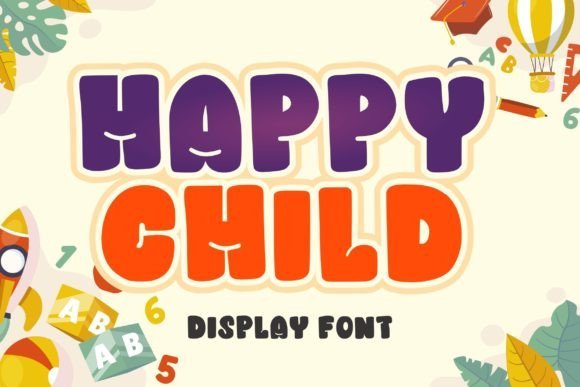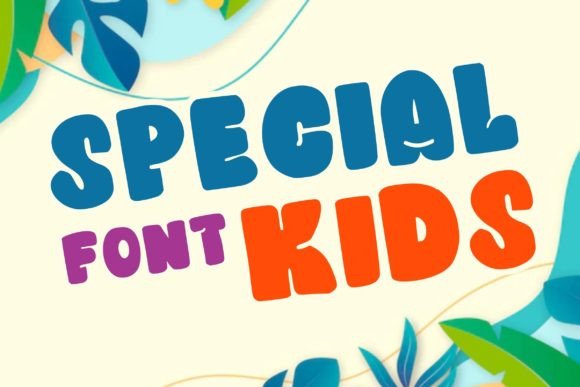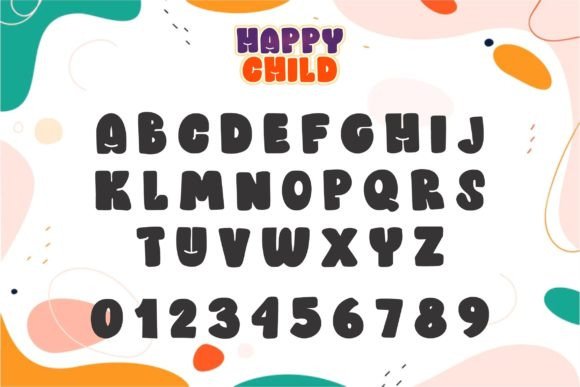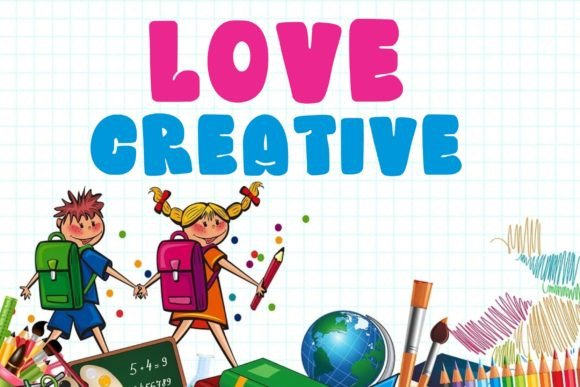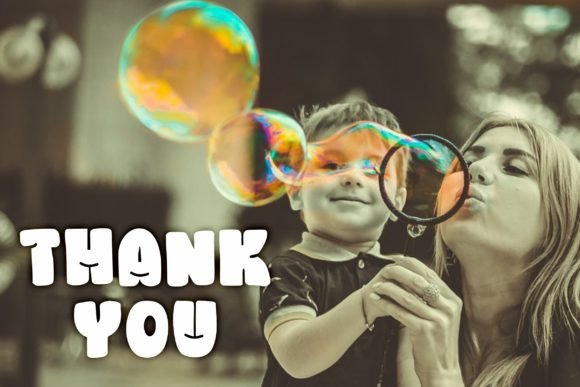
Unlock the Joy in Your Creative Projects
Have you ever sat down to work on a project, and suddenly the perfect idea strikes you? Maybe it’s a new design for a children’s book, or a fun social media post to brighten someone’s day. Whatever it is, you know exactly what you want it to look like – colorful, playful, and full of life. That’s where the Happy Child Font comes in – a fun and cheerful display font that will bring your creative vision to life!
This versatile font is perfect for a wide range of projects, from t-shirts and stickers to book covers and invitations. As a designer, you know how much a great font can elevate a project and make it truly special. The Happy Child Font is a valuable addition to any designer’s toolkit, offering a unique and eye-catching way to express your creativity and connect with your audience.
Happy Child Font Key Features
- Unique Characteristics: Features a playful, childlike aesthetic with rounded edges and friendly letterforms, perfect for children’s books, educational materials, and family-friendly brands
Happy Child Font Review
I recently had the chance to work with the Happy Child Font, and I must say it’s a unique addition to any design project. ✨ The font’s playful and whimsical feel is perfect for creating a fun and engaging atmosphere, especially when targeting a younger audience.
Here are some of the things I like about the Happy Child Font:
- Its versatility – the font can be used for both digital and print projects, making it a great option for businesses that want to create a consistent brand identity across multiple channels.
- Customization options – the font comes with a range of customization options, including font sizes, colors, and even custom designs, allowing designers to get creative and tailor the font to their specific needs.
- Its ability to evoke emotions – the Happy Child Font is designed to make people smile, and it does just that. Its bright and cheerful feel can help create a positive association with a brand, which is invaluable in today’s competitive market.
- Readability – while the font is perfect for creating a fun atmosphere, it can be a bit difficult to read at smaller font sizes, which may limit its use in certain contexts.
- Lack of sophistication – the font’s playful feel may not be suitable for more formal or professional projects, where a more subdued and serious tone is required.
- Overuse – the font’s unique style can make it feel overused if not used sparingly, which may detract from its overall impact.
Overall, I think the Happy Child Font is a great addition to any designer’s toolkit, but it’s essential to use it judiciously and consider the context in which it will be used.
The Happy Child font is perfect for:
- Education and learning materials.
- Family and parenting-related content.
Alternatives to Happy Child Font
Lobster is a fun, cursive font perfect for adding a touch of playfulness to your designs. It’s great for titles, headings, and other text elements where you want to convey a sense of friendliness and approachability.
Compared to Happy Child Font, Lobster has a more refined, elegant feel, but still maintains a sense of whimsy and fun. It’s a good choice when you want to add a bit of sophistication to your design.
Q: Is the Happy Child Font available in bold and italic styles?
Yes, the Happy Child Font includes bold and italic styles, allowing for added flexibility and expressiveness in your designs. You can access these styles by selecting the corresponding font weights and styles in your design application.